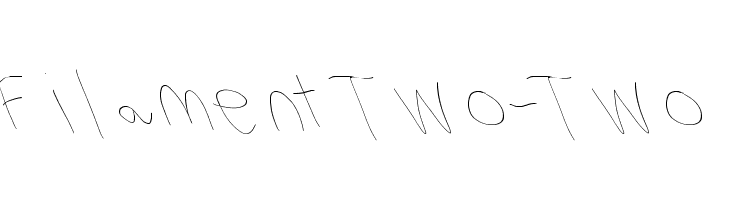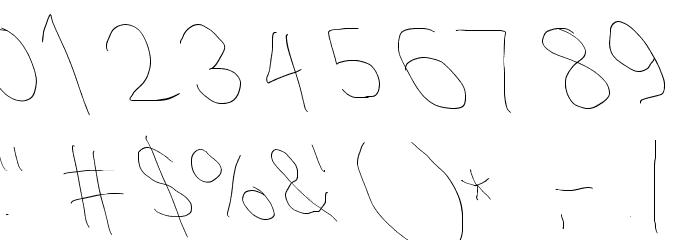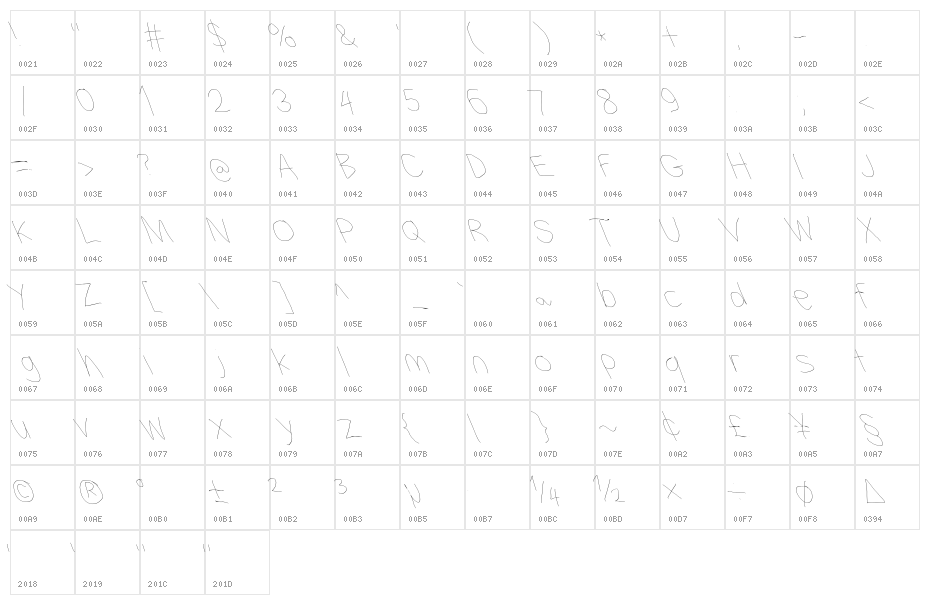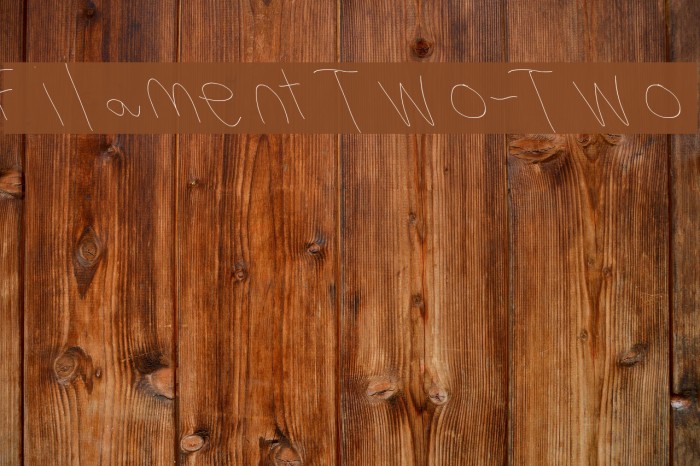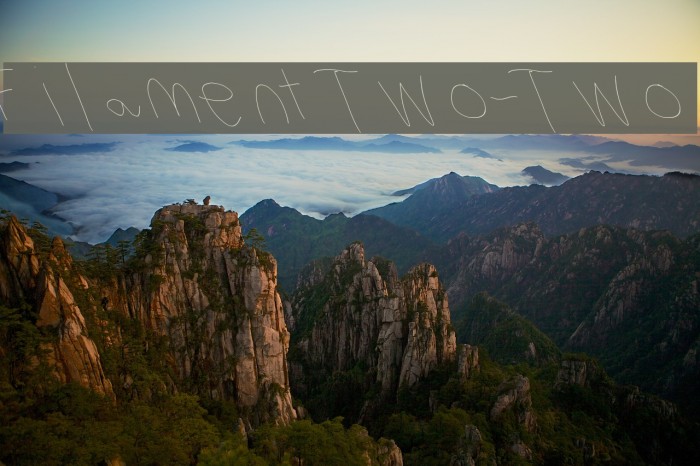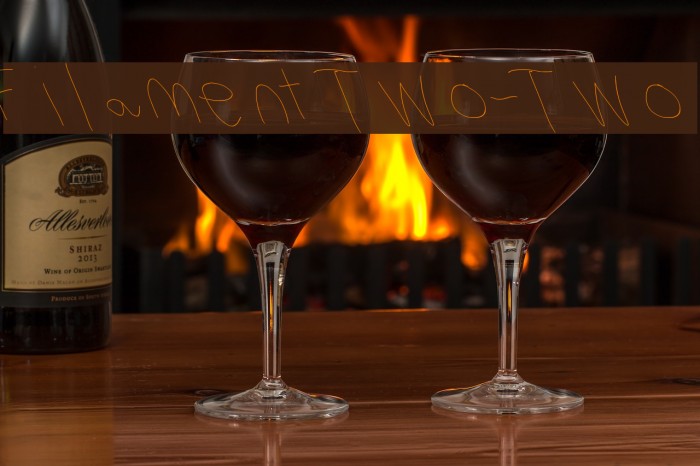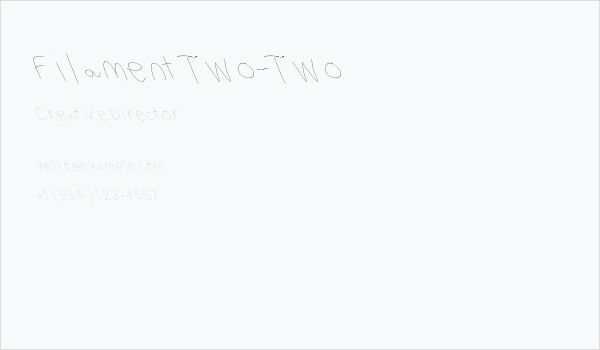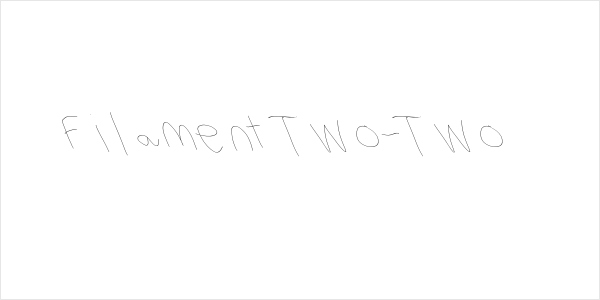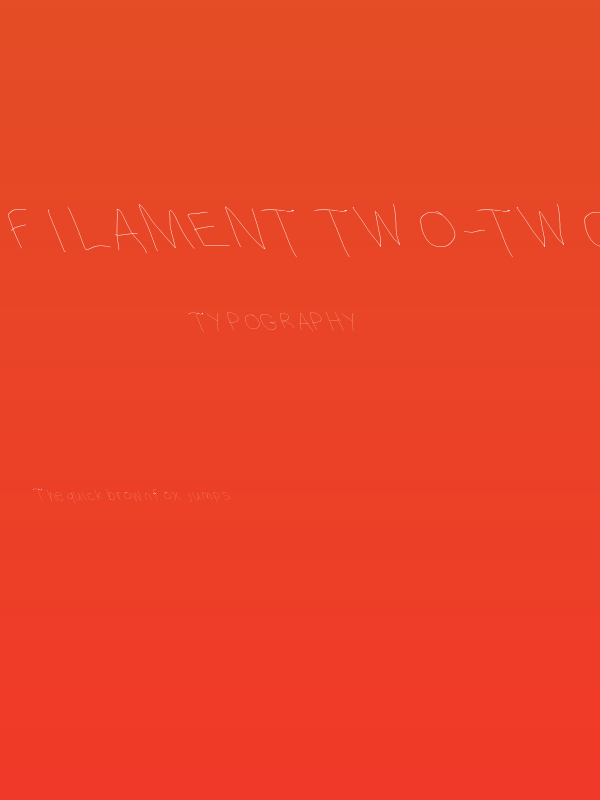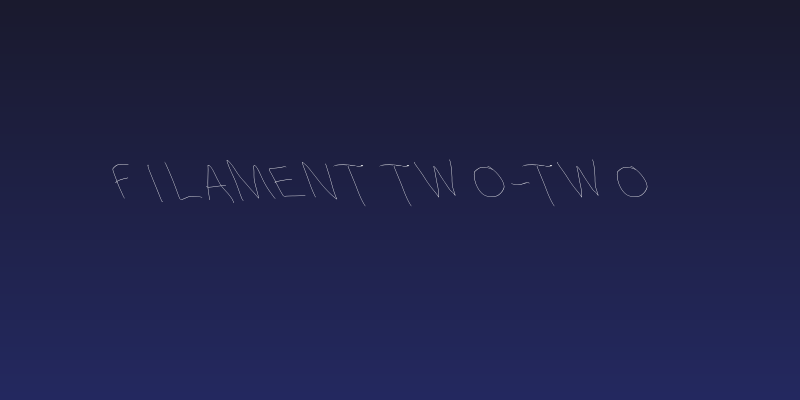
Filament Two-Two Font
Filament Two-Two Description
This font features a playful, hand-drawn style with a casual and informal appearance. The letters are thin and slightly uneven, giving it a whimsical and approachable feel. The uppercase and lowercase letters maintain a consistent height, while the numbers and special characters blend seamlessly with the overall design. The strokes are light and airy, creating a sense of movement and fluidity. This font is perfect for projects that require a personal touch or a creative flair, such as children's books, greeting cards, or artistic posters.
| Overall Style | Casual, Whimsical |
| Use Case | Headlines, Artistic projects, Informal text |
| Proposed Projects | Ideal for children's books, greeting cards, artistic posters, and creative projects. |